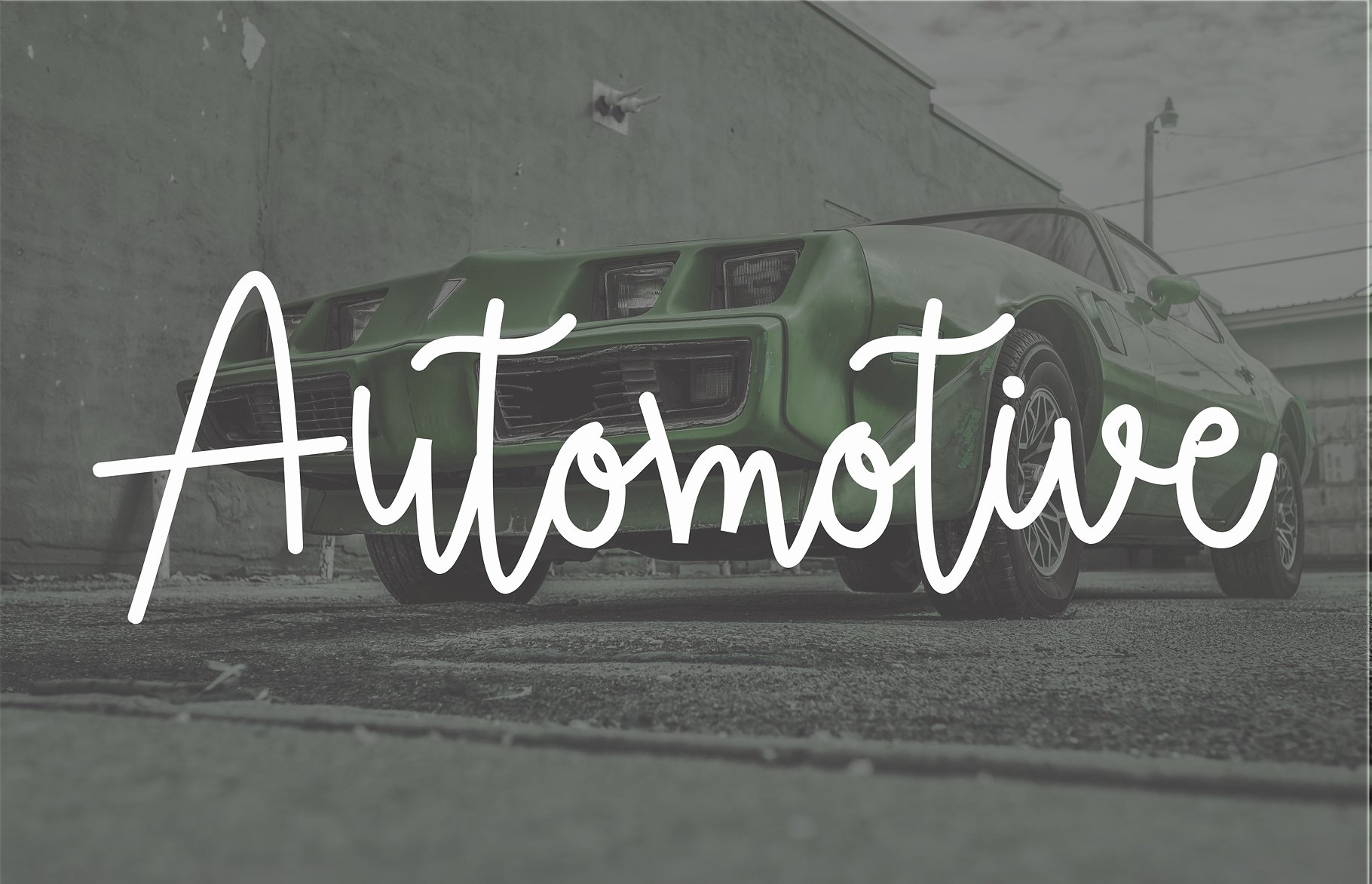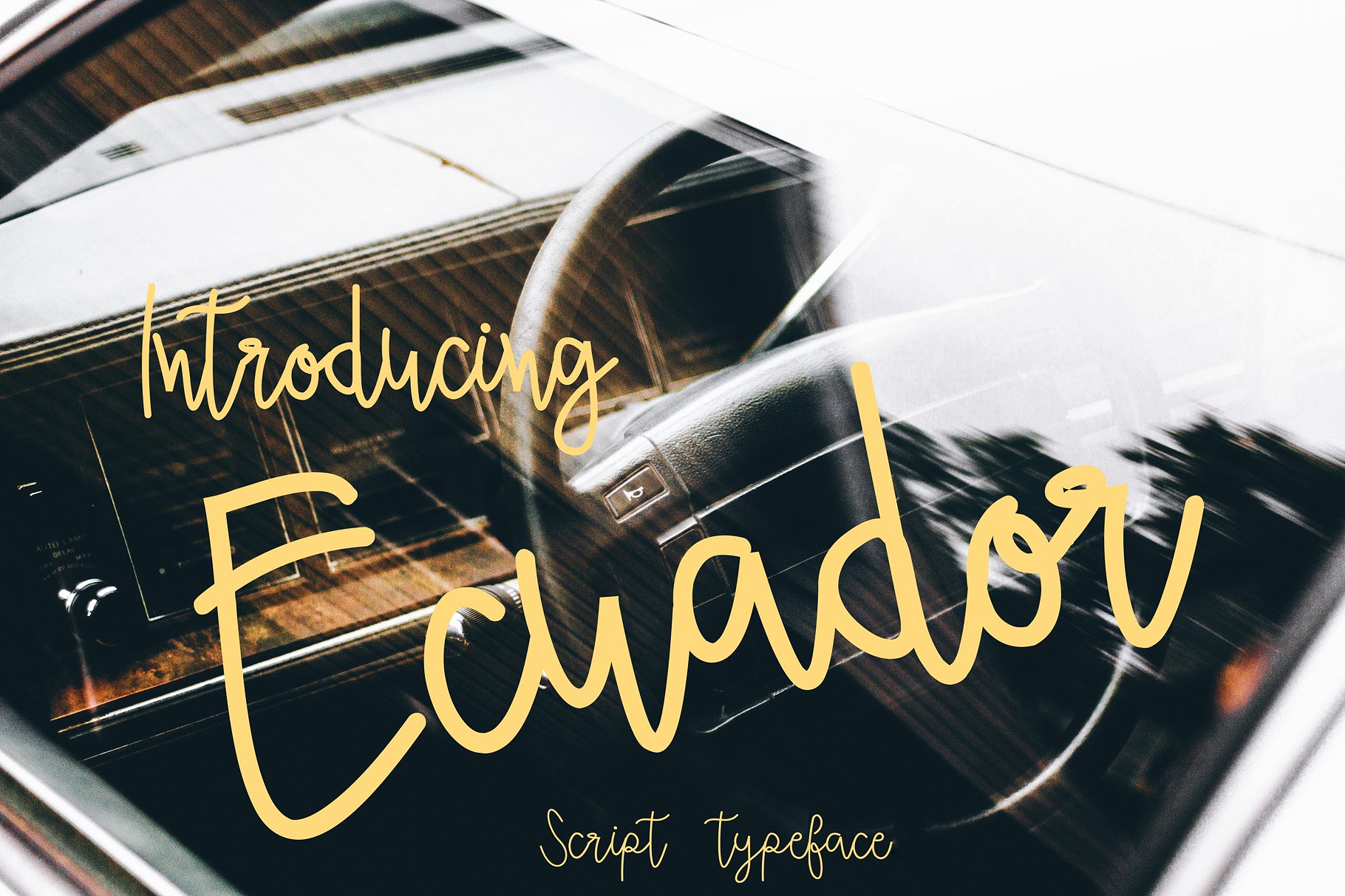
Ecuador Script
Ecuador Script Font
has been present for you. “Ecuador” is perfectly suited to signature, stationery, logo, typography quotes, magazine or book cover, website header, clothing, branding, packaging design and more.Ecuador jga comes with ligature and supports language